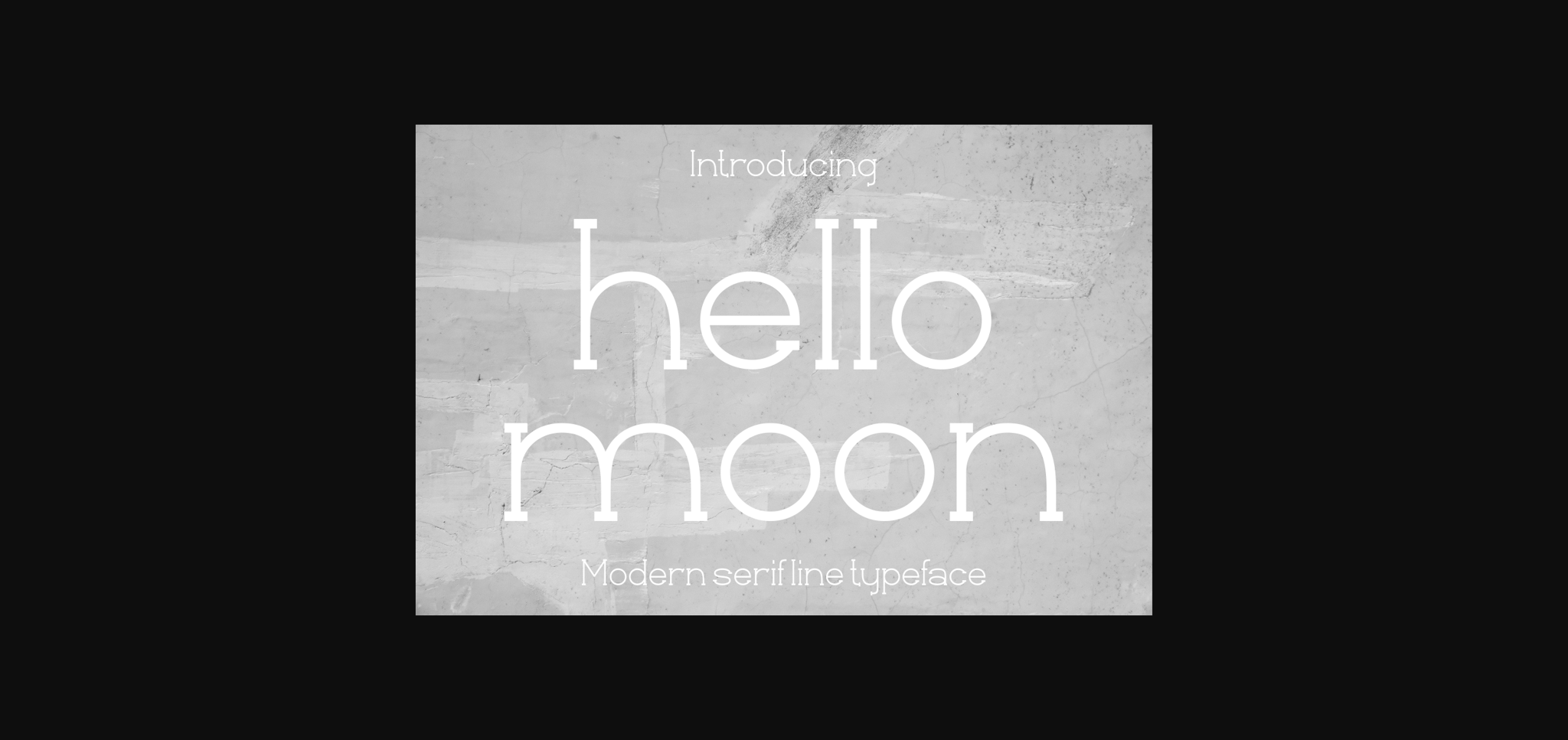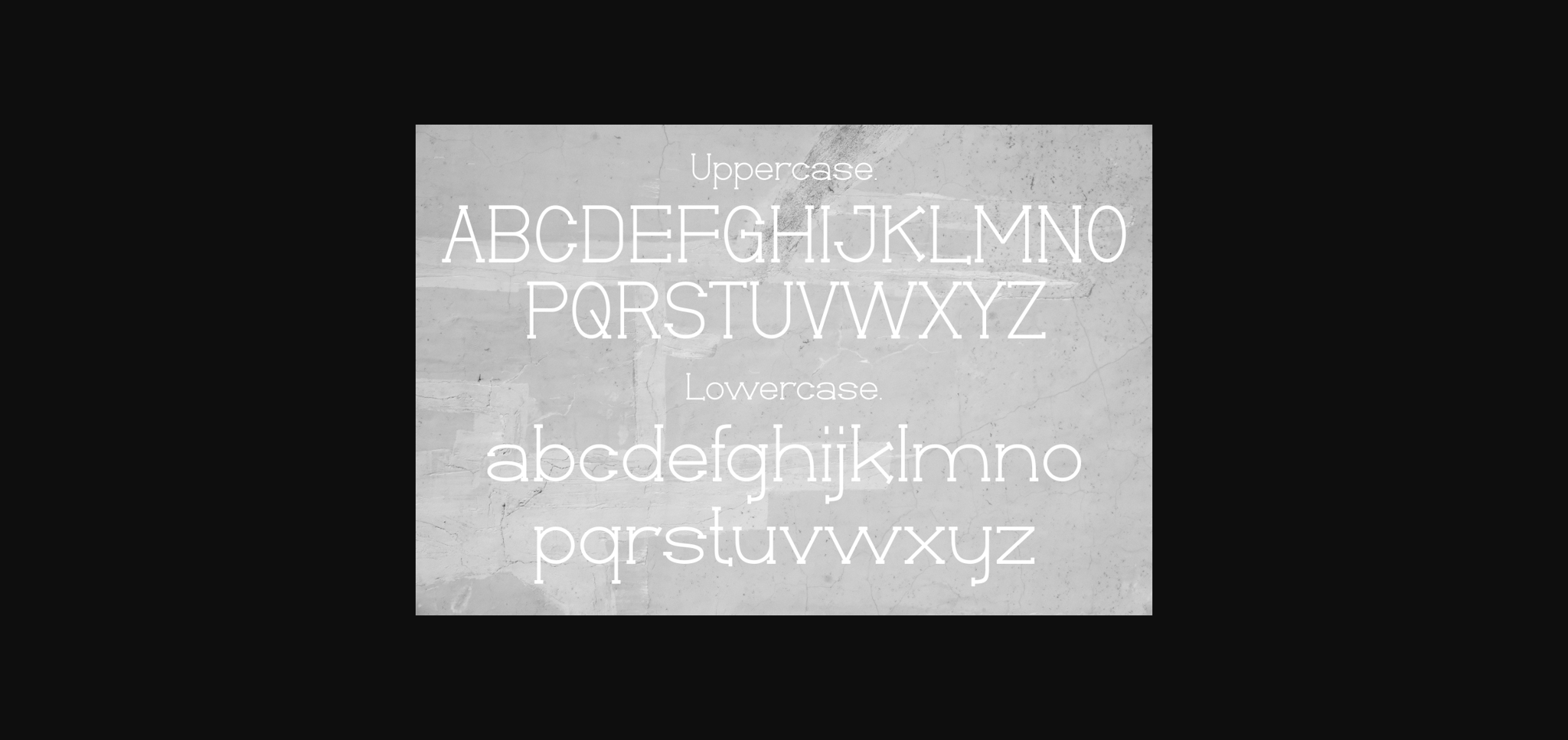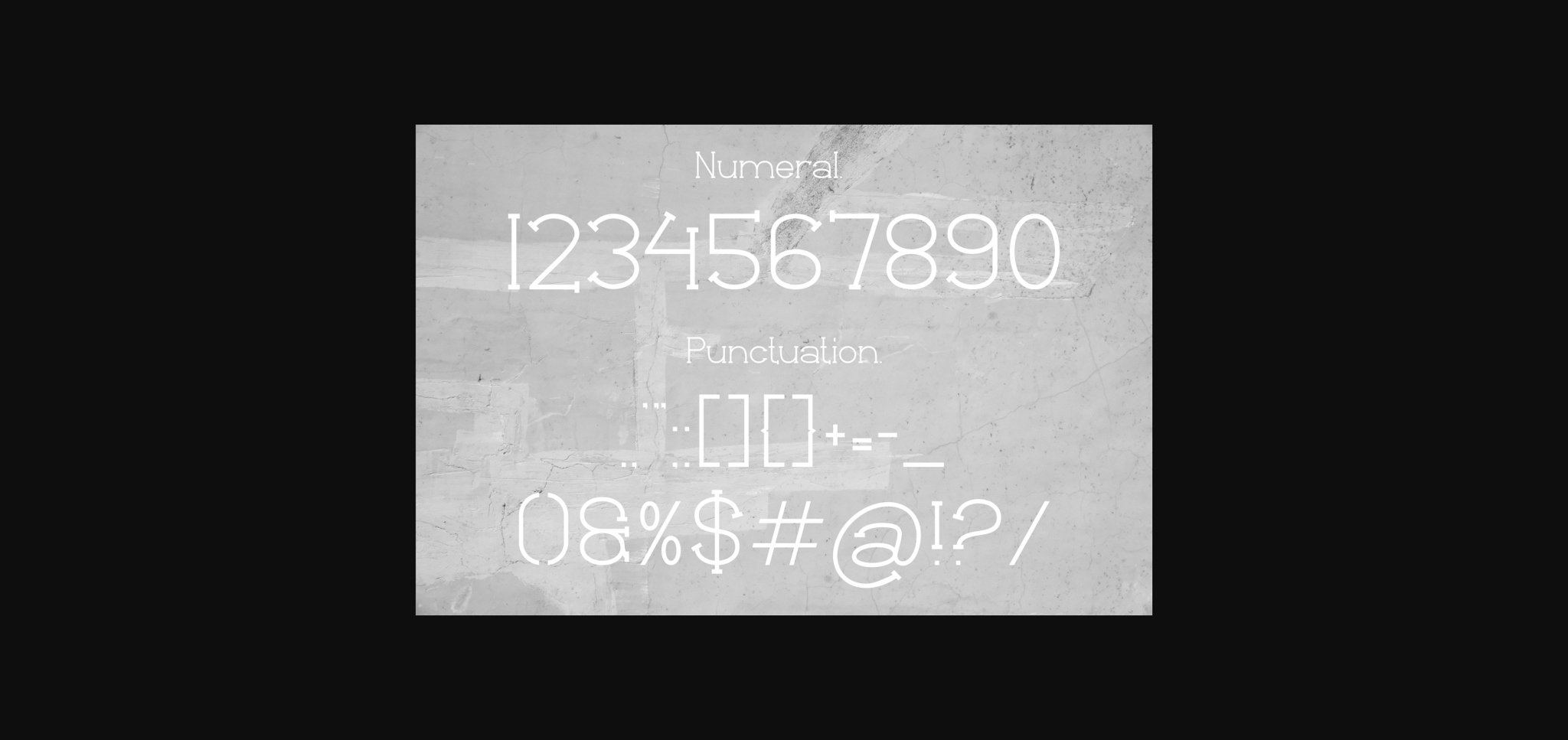
About Hellomoon Font
Hellomoon is a thin, cute, and friendly sans serif font. Whether you are using it for cartoon-related designs, children’s games, quotes, titles, brand names, book covers, posters, or just any creation that requires a touch of beauty, this font is a great choice.